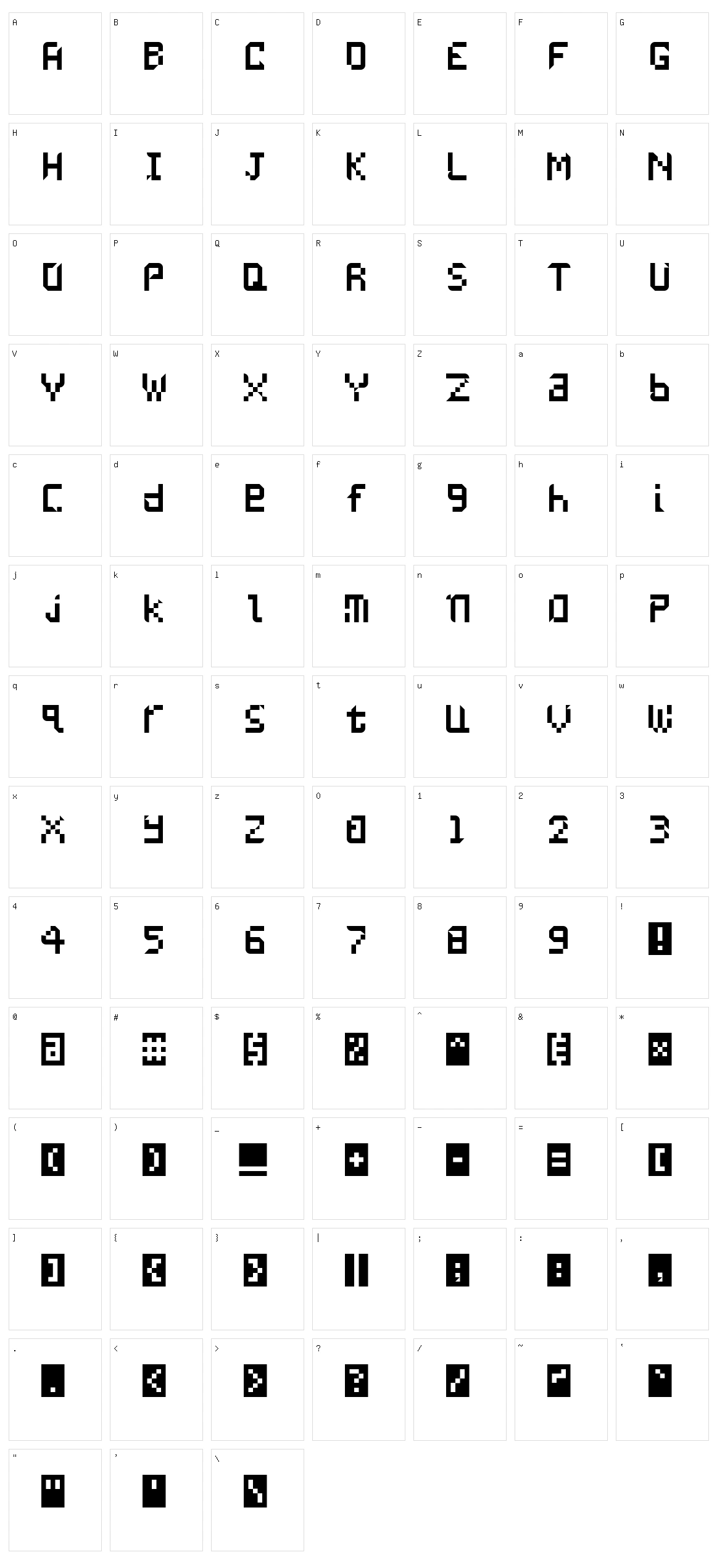
Undatame
Designed by: Vaughn Royko
UNDATAME is a typeface developed for a school project named "UNDATA" during 2008. The project related to the deliberate corruption of imagery, video and sound - fitting with the theme, this typeface was created to market the project and to use as supplemental text throughout the project. The typeface has a pixelated, yet abstract and geometric feel to it, but delves into the "glitch" or "corrupted" aesthetic. It sometimes does not use proper upper or lowercase depending on the character; however, this was intentional as the font was originally to be used as a "mixed case" font, for example: "LiKe ThIs", to further the original concept behind it. Punctuation follows a strict, inverted block style format that contrasts and differs greatly from the rest of the characters.